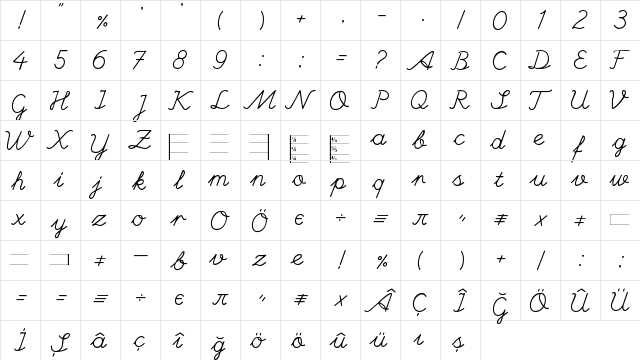
Hand writing Mutlu Regular
Design Context for Hand writing Mutlu Typeface
Hand writing Mutlu brings a calligraphic fluidity to the page — its connecting strokes and expressive curves give it an unmistakably human quality.
Font Pairing: Combine Hand writing Mutlu with a simple geometric sans for maximum contrast — the tension between flowing curves and clean structure is a classic typographic pairing.
Pro Tip: Pair Hand writing Mutlu with a clean sans-serif for supporting text. The contrast between fluid script and geometric structure creates an elegant typographic hierarchy.